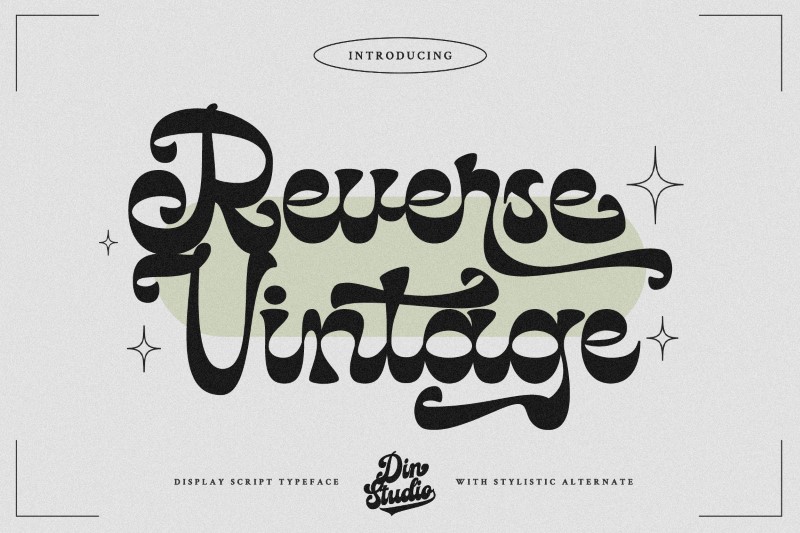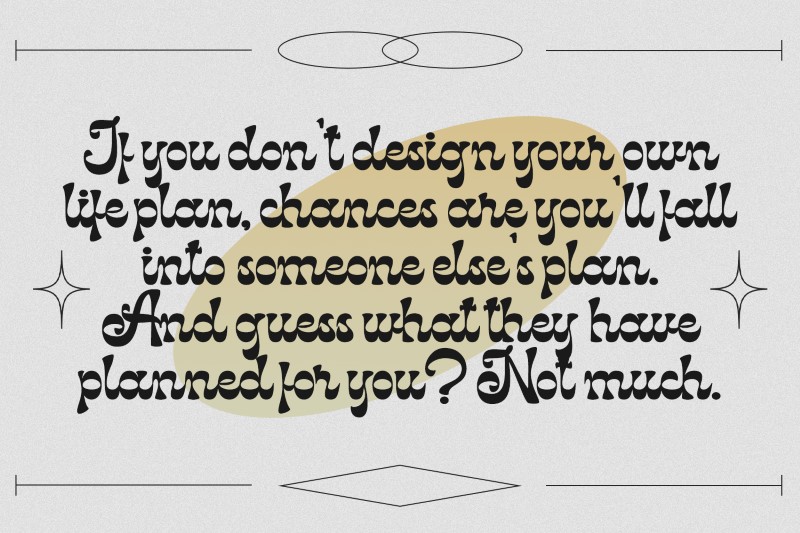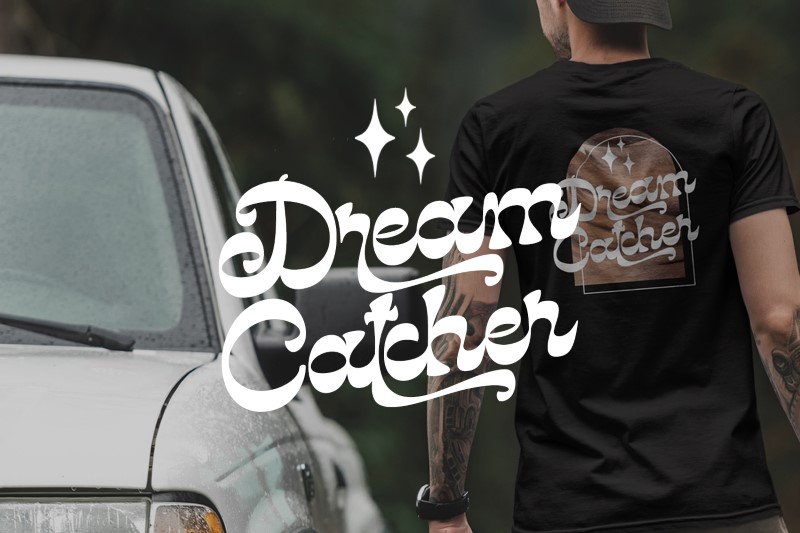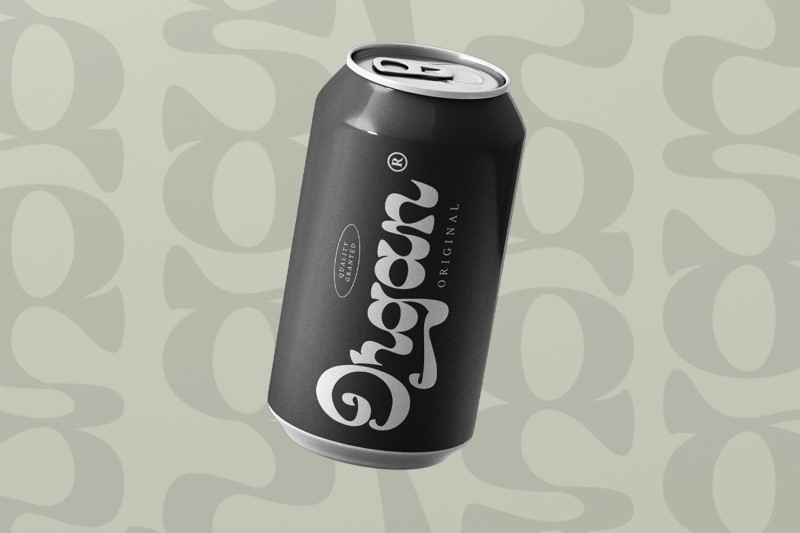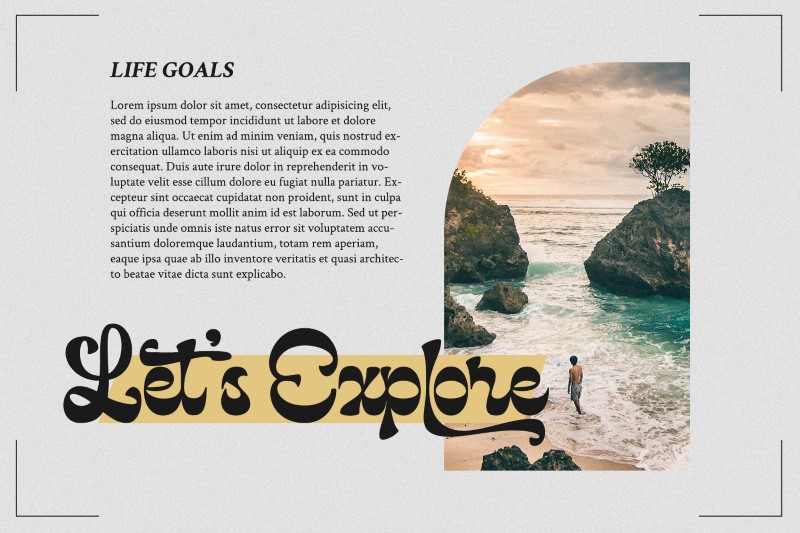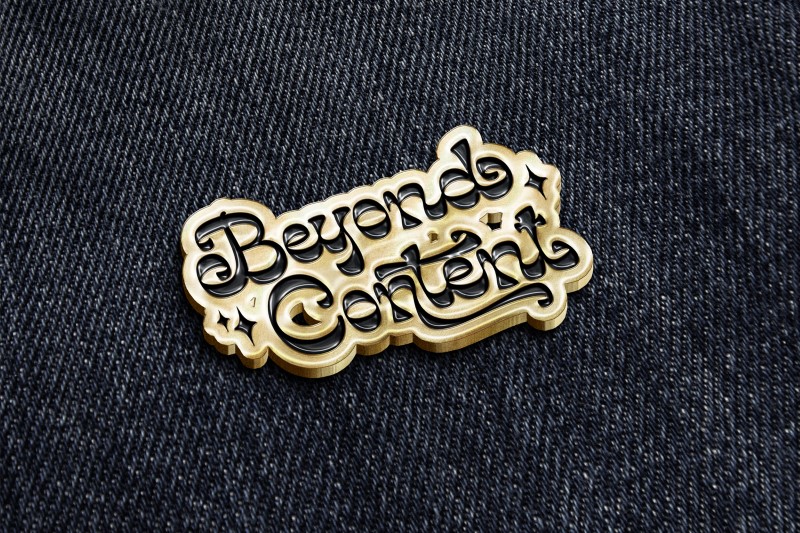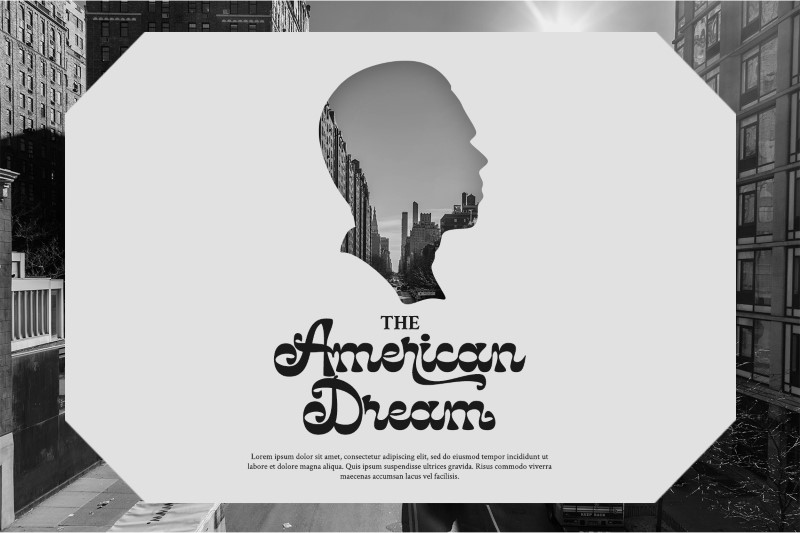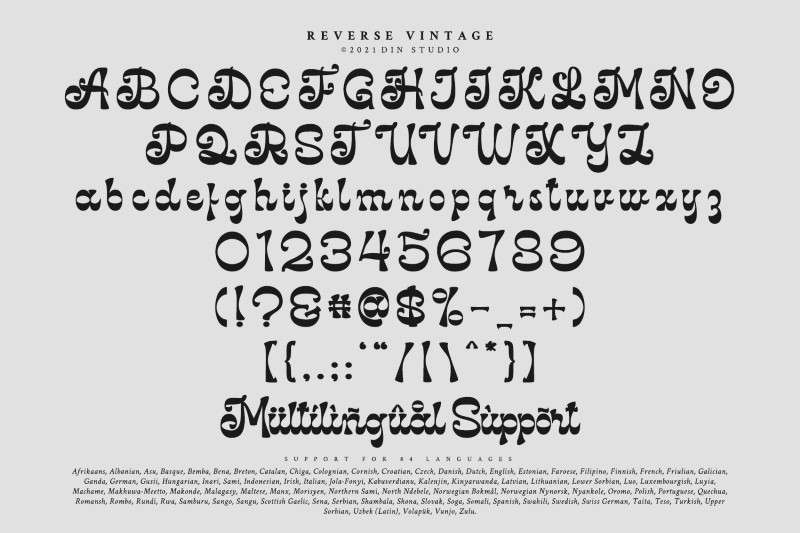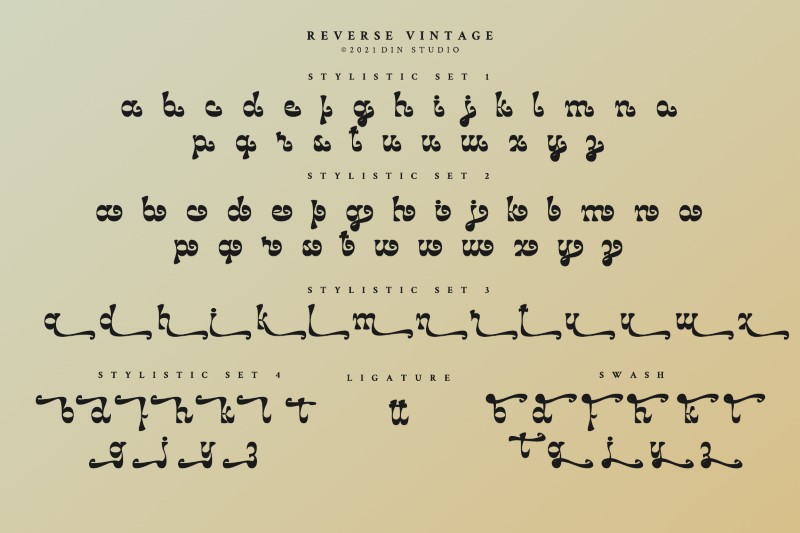
Reverse Vintage
Choosing fonts for design projects can be an endless task to do because there’s thousands of fonts out there all that you could use. Wait no more, we will give you the best choice. Reverse Vintage.
Reverse Vintage aims to bring out a modern and stylish view. This font is made specifically designed to fit a variety of different content needs and projects. Everything’s well with cursive! The curvature of the Reverse Vintage was fully thought out to easily meld inside your designs. These fonts make a good foundation of what you want it to be. Show your opulence and decadence with this fancy font and blow your audience’s mind away as you put these cursive letters in your projects.
Features include:
• Ligatures
• Stylistic Alternates
• Swashes
• Numerals and Punctuations